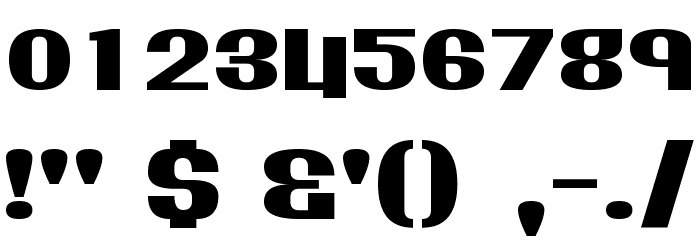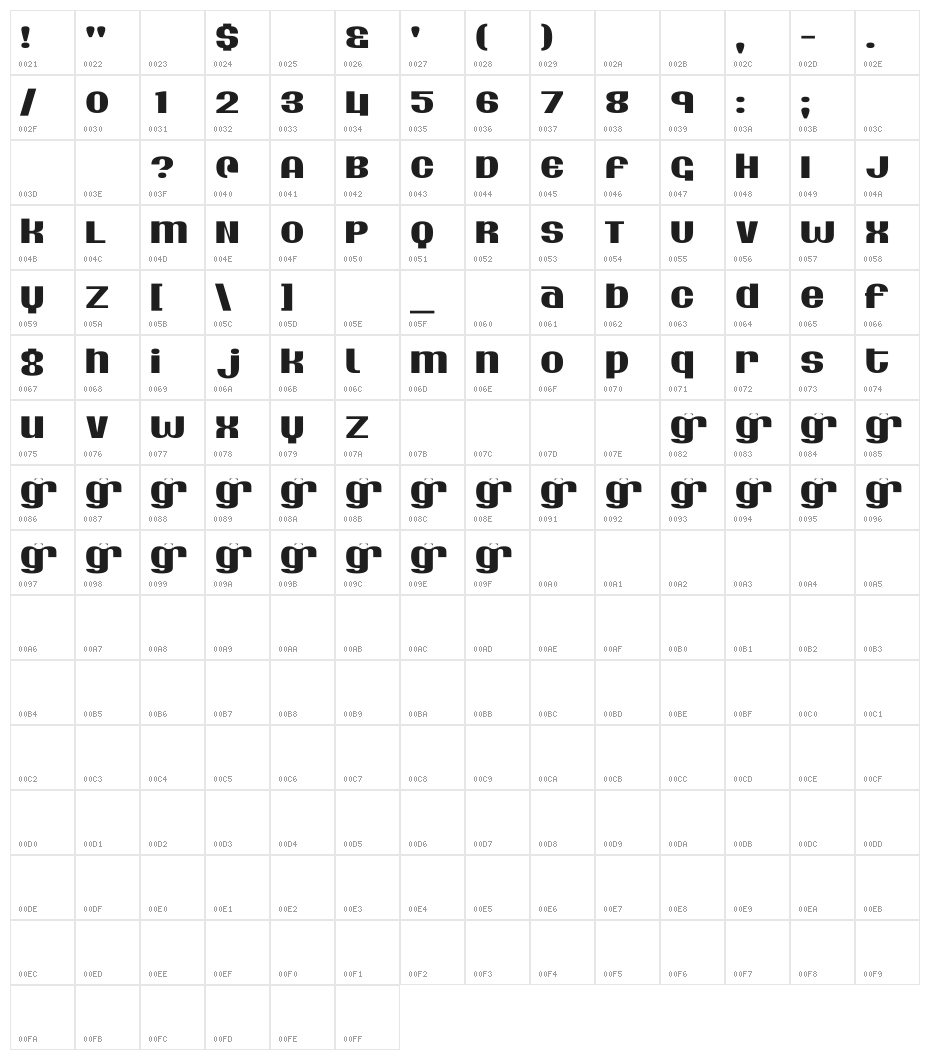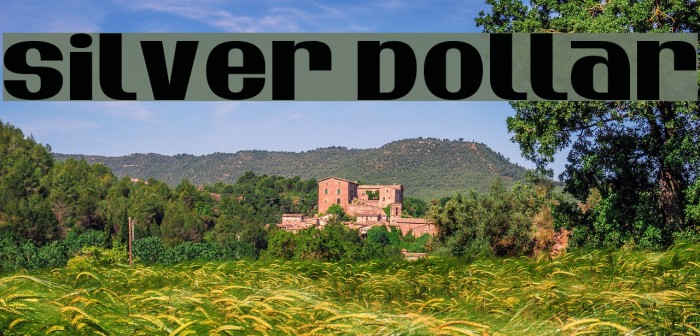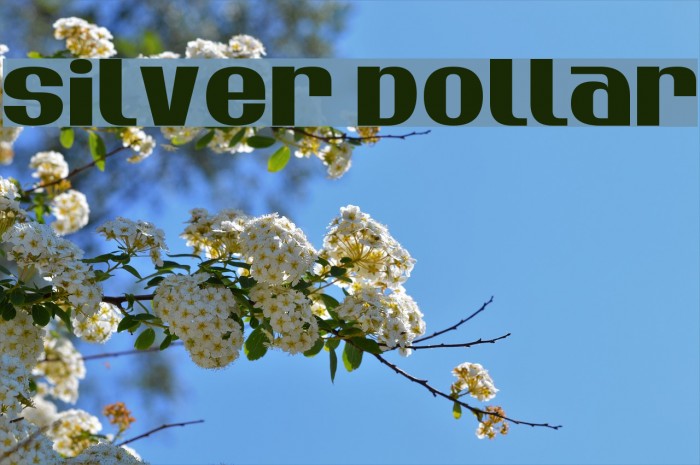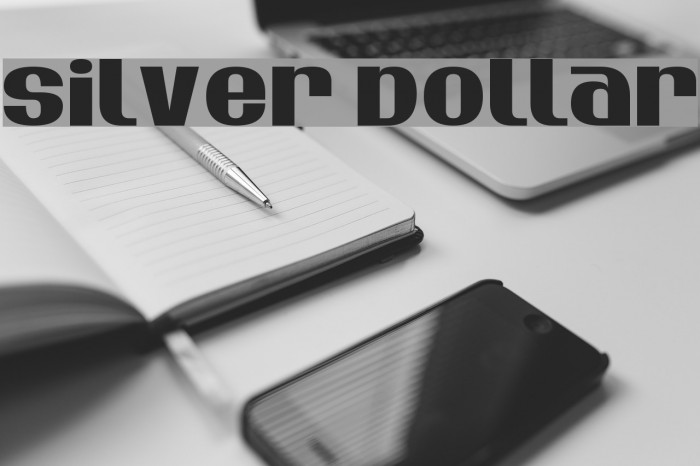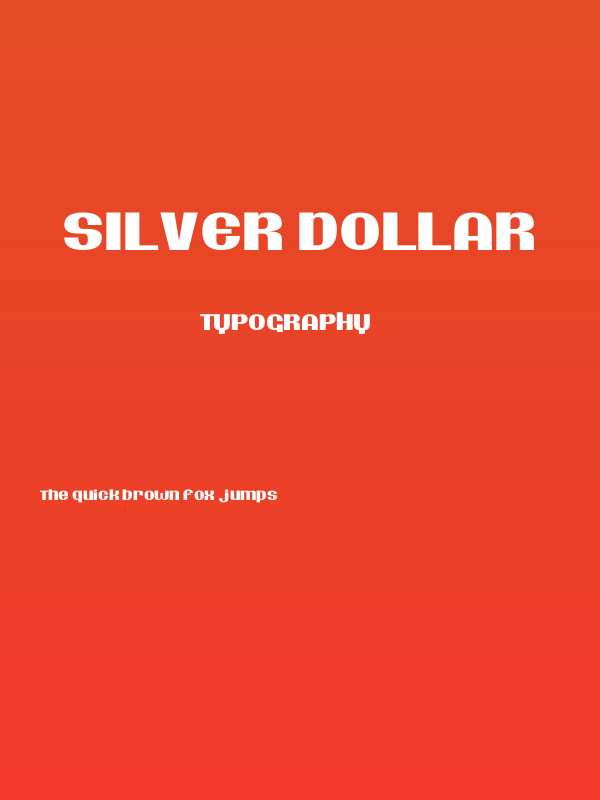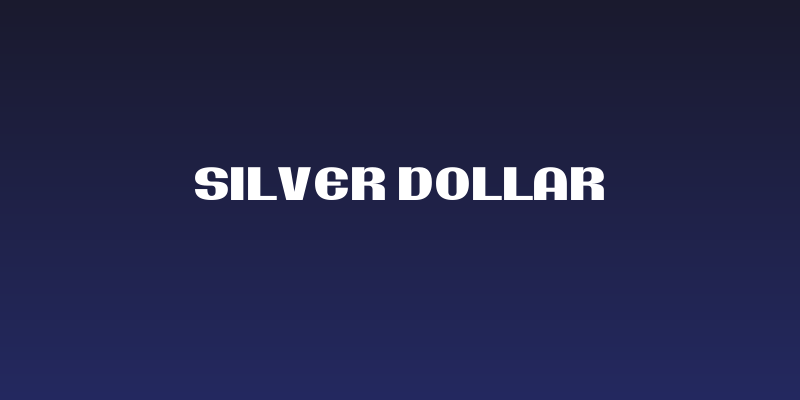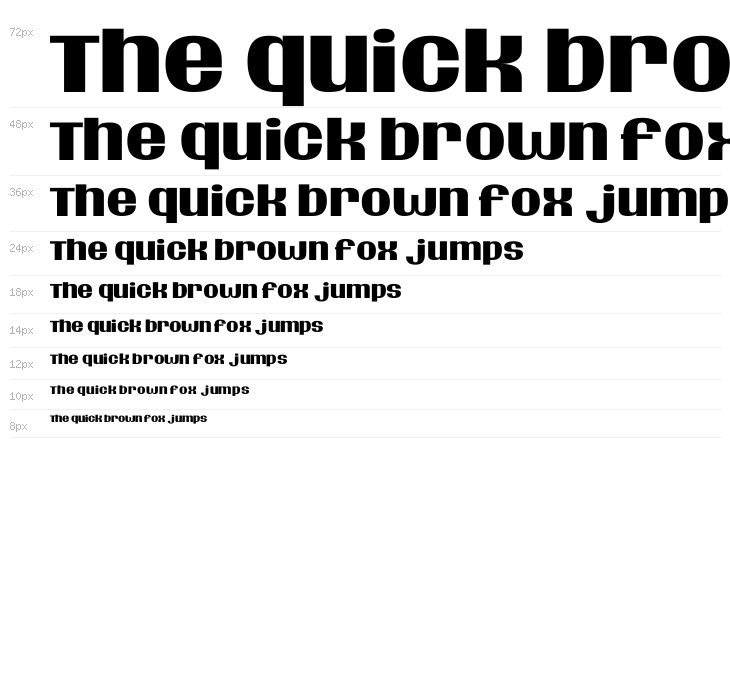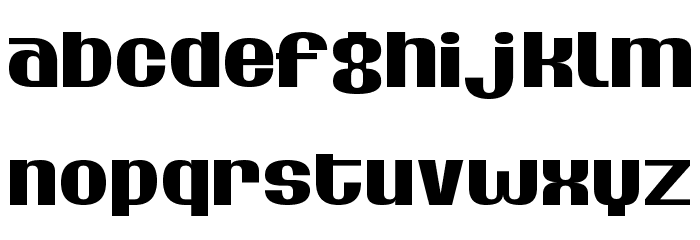
Silver Dollar Font
Silver Dollar Description
This font features a bold and impactful design with a modern twist. The characters are wide and have a strong presence, making them ideal for attention-grabbing headlines. The uppercase letters are particularly striking, with unique geometric shapes that add a contemporary feel. The lowercase letters maintain the boldness while offering a slightly softer edge. Numbers and special characters are consistent with the overall style, ensuring a cohesive look across all text elements. The font's design is both functional and stylish, making it versatile for various creative projects.